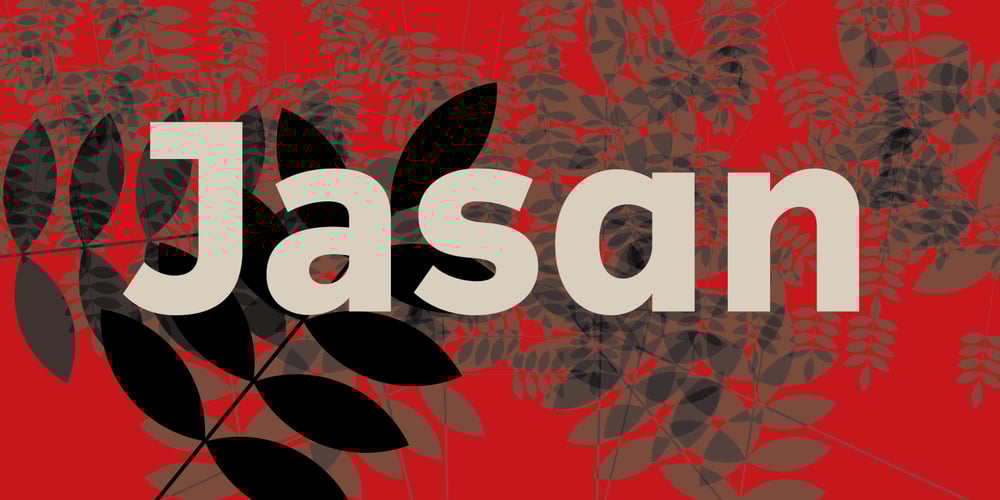
Jasan
Jasan font
Jasan Font Family was designed by František Štorm and published by Storm Type Foundry. Jasan contains 36 styles and family package options. Jasan is the Czech expression for ash tree (Fraxinus Excelsior) which provides great wood for tools and furniture. In a landscape it’s a rather inconspicuous tree which forms beautiful alleys. Jasan typeface represents a synthesis of many famous sans-serifs: despite the concept being strictly rational, it’s not at all cold. Simple shapes & human expression will make your projects nicely colored. It brings excellent clarity for printed and web publishing, visual identity & information systems. The 36-font family contains multi-lingual support including Cyrillics, Small Caps & rich palette of OpenType Features.